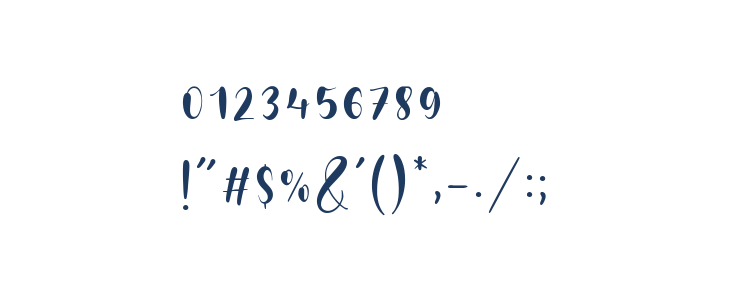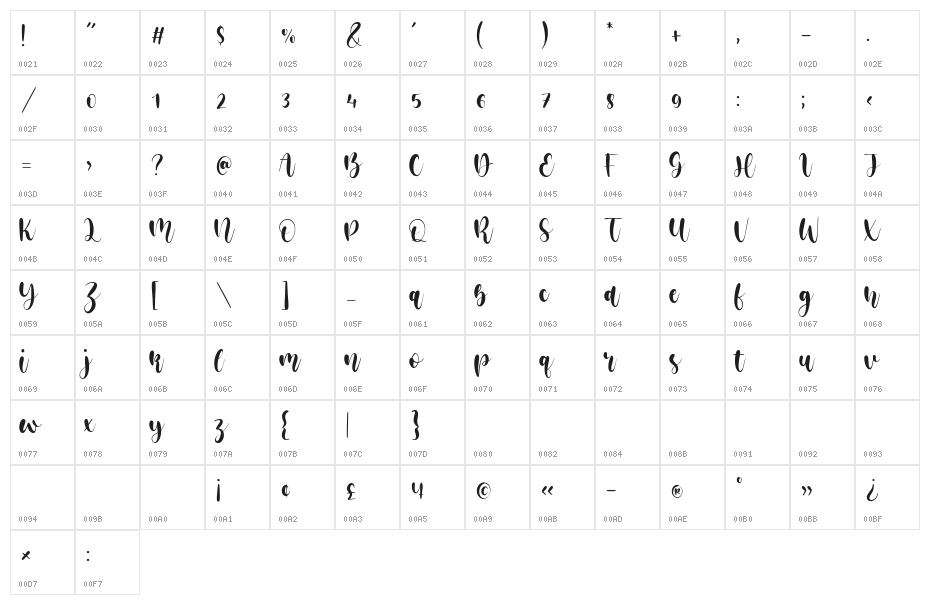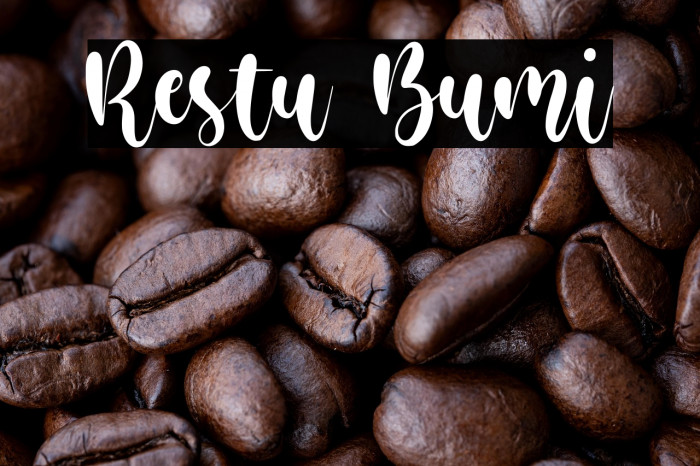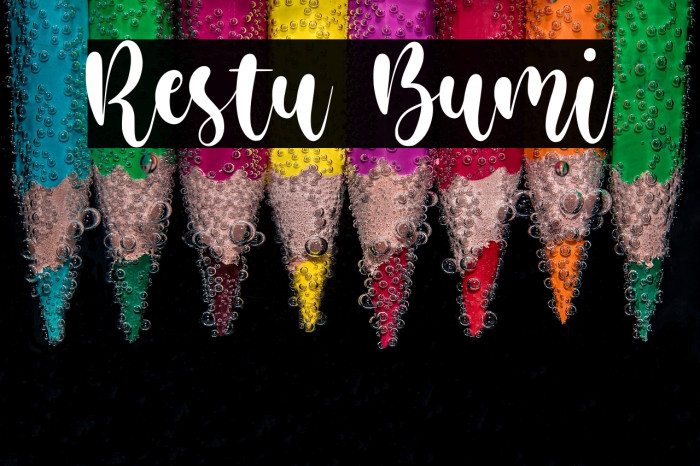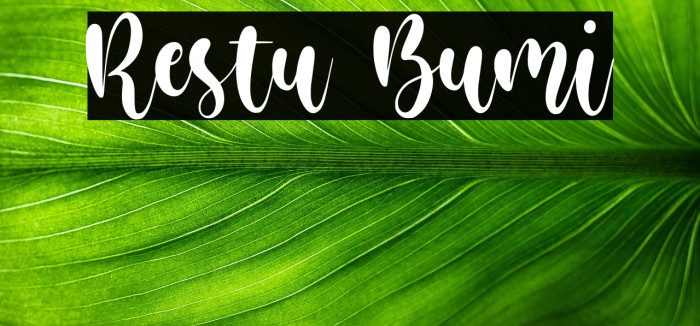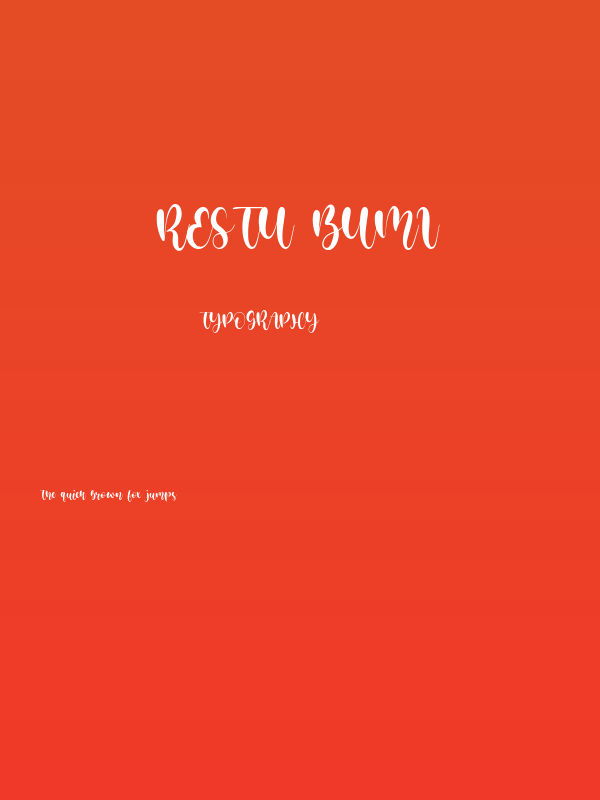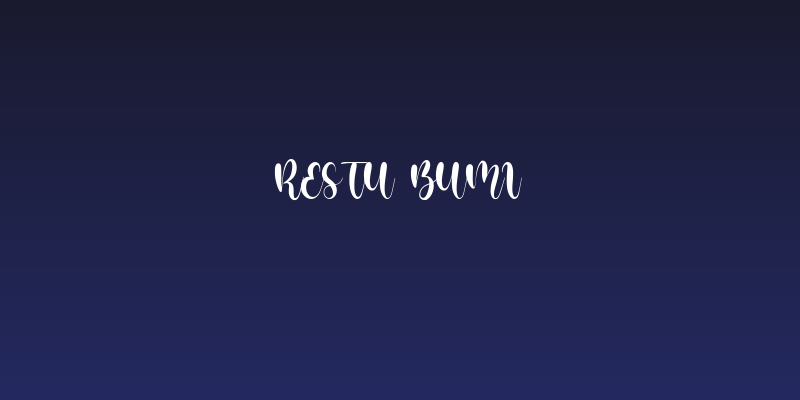
Restu Bumi Font
Restu Bumi Description
This font features a flowing, cursive style with elegant loops and flourishes. The characters are connected, giving it a handwritten feel that is both stylish and sophisticated. The uppercase letters are tall and graceful, while the lowercase letters maintain a consistent flow, enhancing readability. The numerals are distinct yet harmonize well with the overall script style. Special characters are thoughtfully designed to match the font's aesthetic, making it versatile for various uses.
| Proposed Projects | Ideal for wedding invitations, greeting cards, branding projects, and elegant logos. |